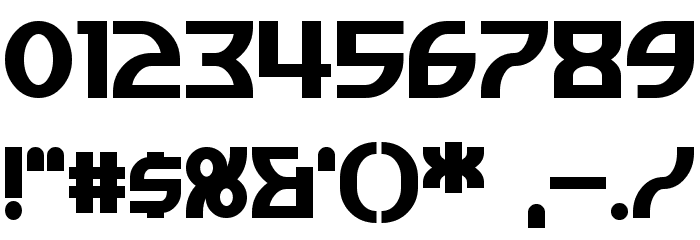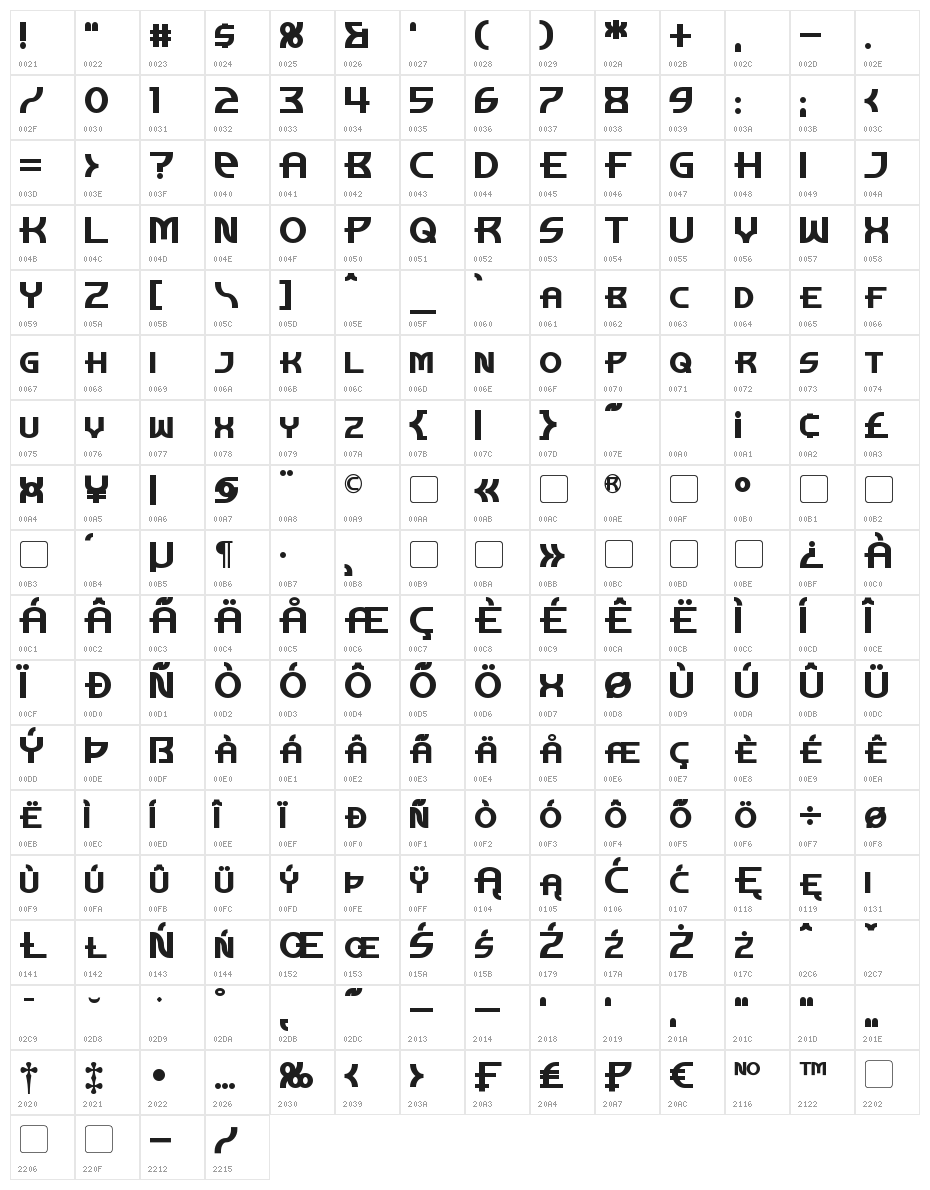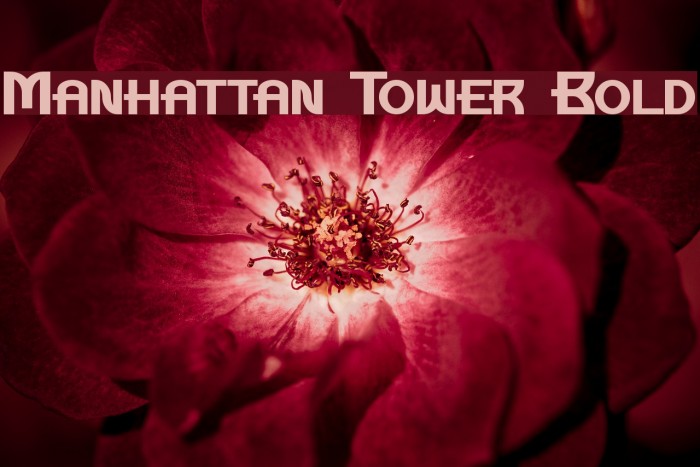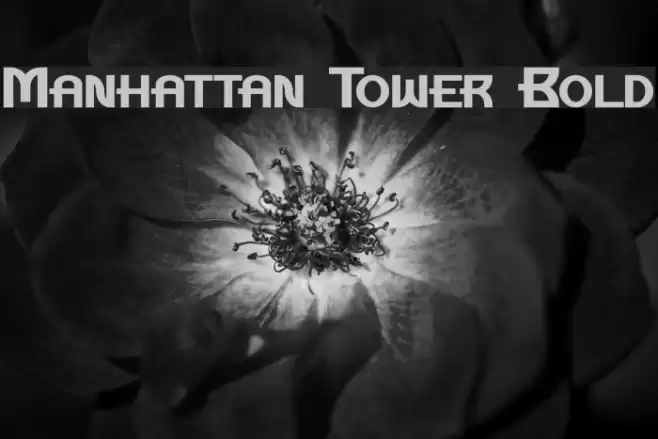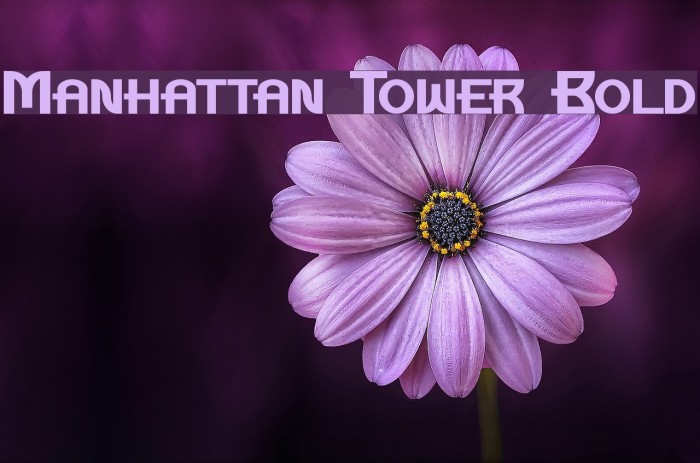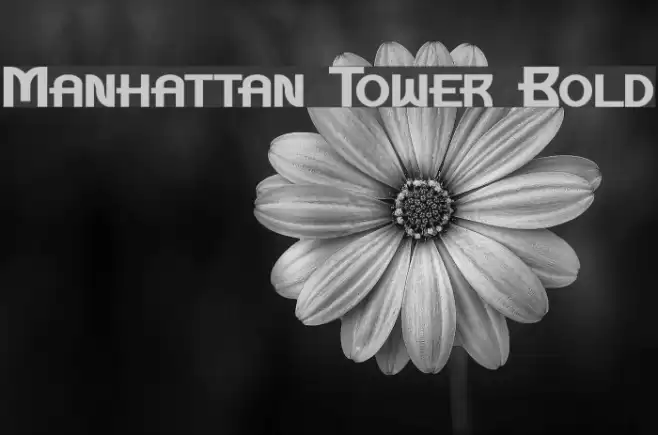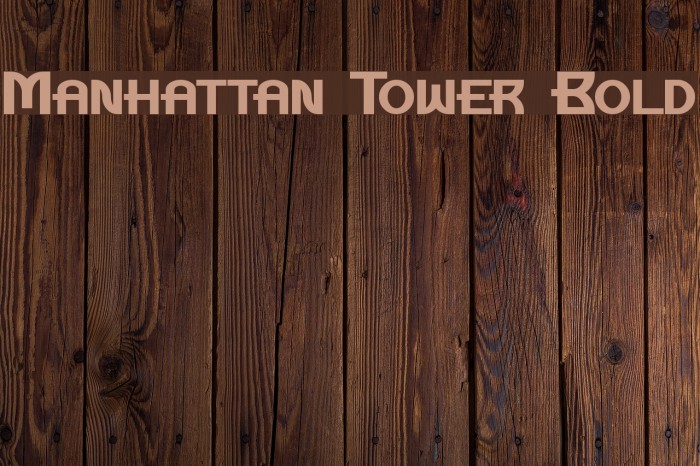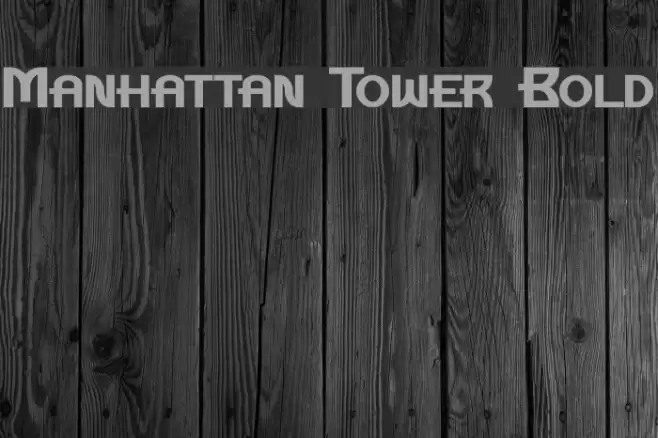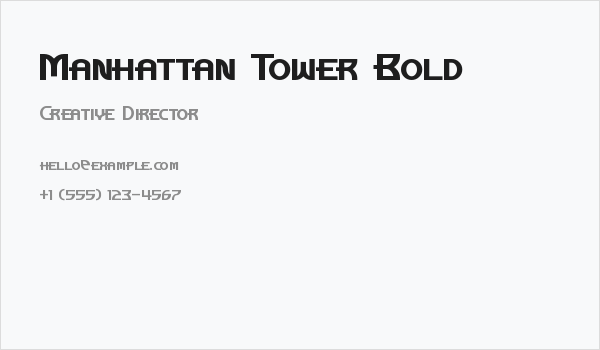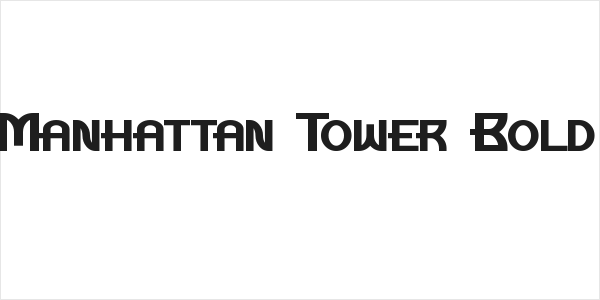
Manhattan Tower Bold Font
Manhattan Tower Bold Description
This font features a bold and geometric design with strong, angular lines and a modern aesthetic. The characters are constructed with a consistent stroke weight, giving them a robust and impactful appearance. The uppercase letters are particularly striking, with a unique blend of sharp edges and rounded corners that create a dynamic visual effect. The numerals and special characters maintain the same boldness and geometric style, ensuring a cohesive look across all text elements. This font's design is both contemporary and versatile, making it suitable for a wide range of applications.